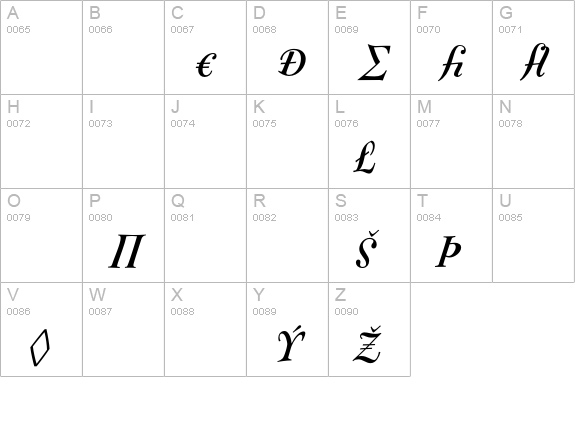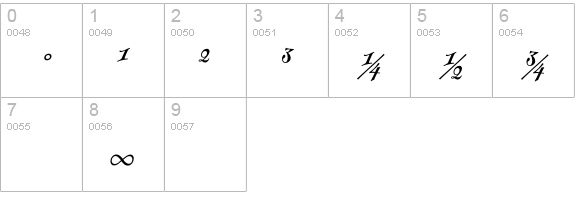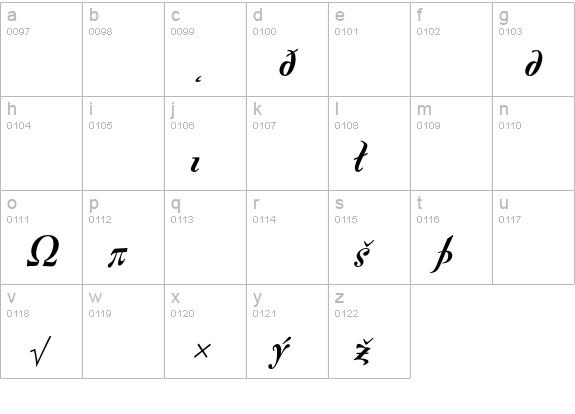
Fontesque-BoldItalicExpert is a striking and elegant typeface that exudes sophistication and style. The bold and italic design adds a touch of flair and personality to any text, making it perfect for both professional and creative projects. With its expertly crafted curves and refined details, this font is sure to make a statement and capture the attention of readers. What makes Fontesque-BoldItalicExpert even more appealing is that it is available for free download at FontsMarket.com. This means that you can easily access this high-quality font without any cost, allowing you to elevate your designs without breaking the bank. Whether you're working on branding materials, invitations, or website content, Fontesque-BoldItalicExpert is a versatile and reliable choice that will enhance your projects with its distinctive charm. Download it today and let your creativity shine with this exceptional font.